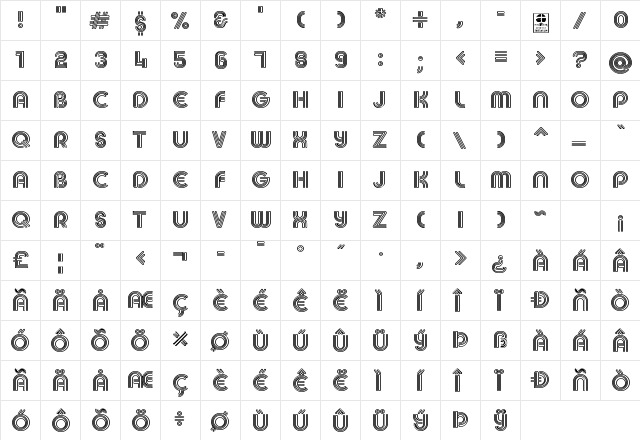
MACCOS Demo Regular
| Foundry | StudioTypo |
| Designer | Mehmet Abac |
Design Context for MACCOS Demo Typeface
MACCOS Demo is a composed and adaptable typeface that performs quietly and consistently across a wide range of design contexts.
Pro Tip: Pair MACCOS Demo with a font of contrasting weight or personality to build a more expressive typographic hierarchy.